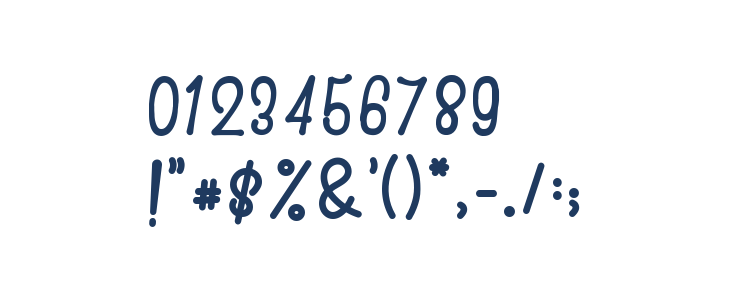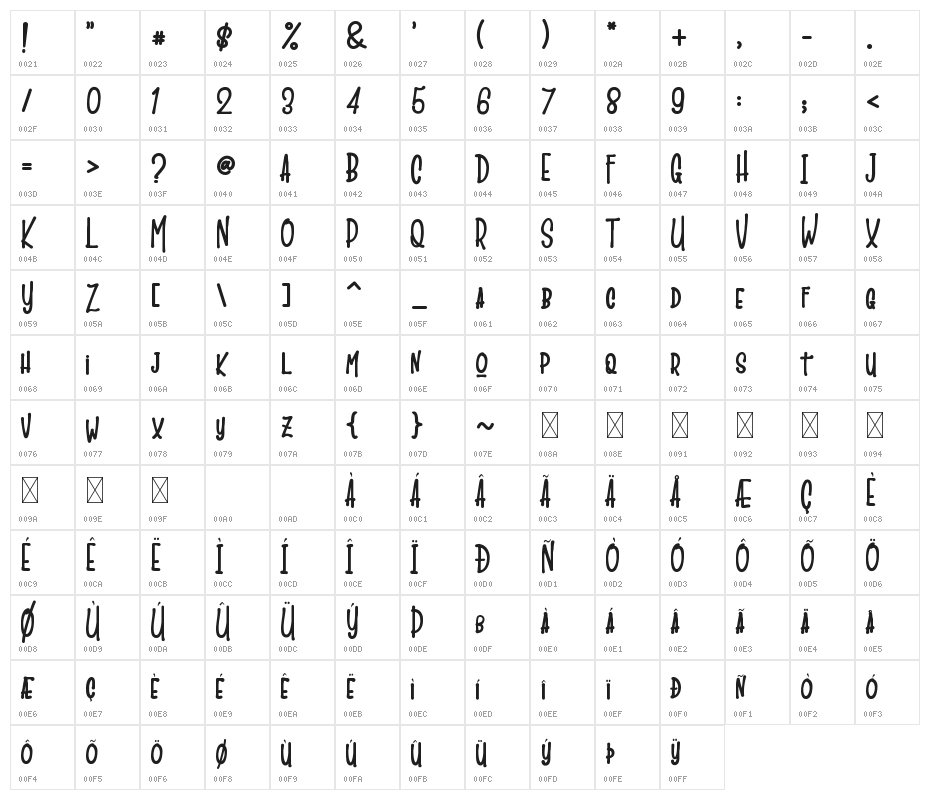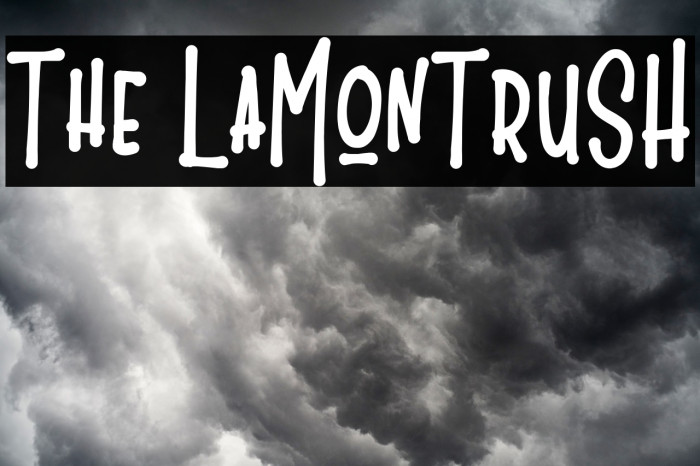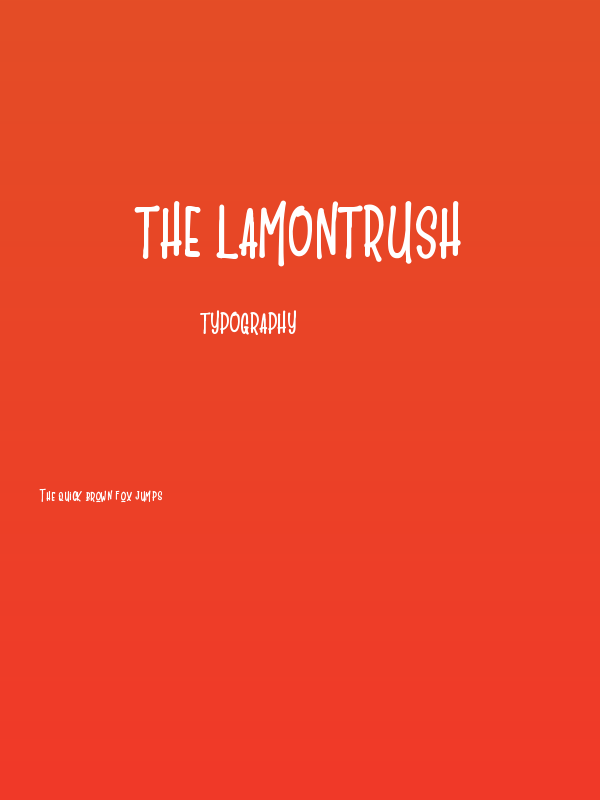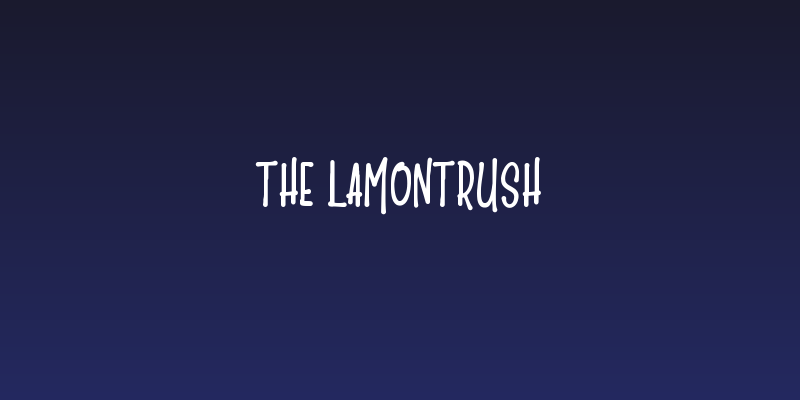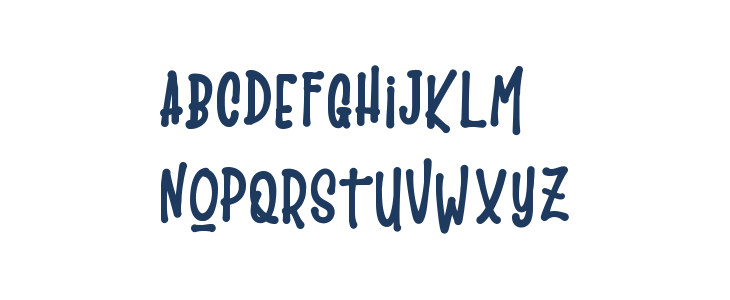
The LaMonTruSH Font
The LaMonTruSH Description
This playful and energetic font features a handwritten style with a casual and friendly appearance. The letters are slightly irregular, adding a touch of whimsy and personality. The strokes are bold and consistent, providing good readability while maintaining a fun aesthetic. The font includes a full set of uppercase and lowercase letters, numbers, and a variety of special characters. Its informal style makes it suitable for creative projects that require a personal touch.
| Proposed Projects | Ideal for greeting cards, children's books, playful branding, and social media graphics. |